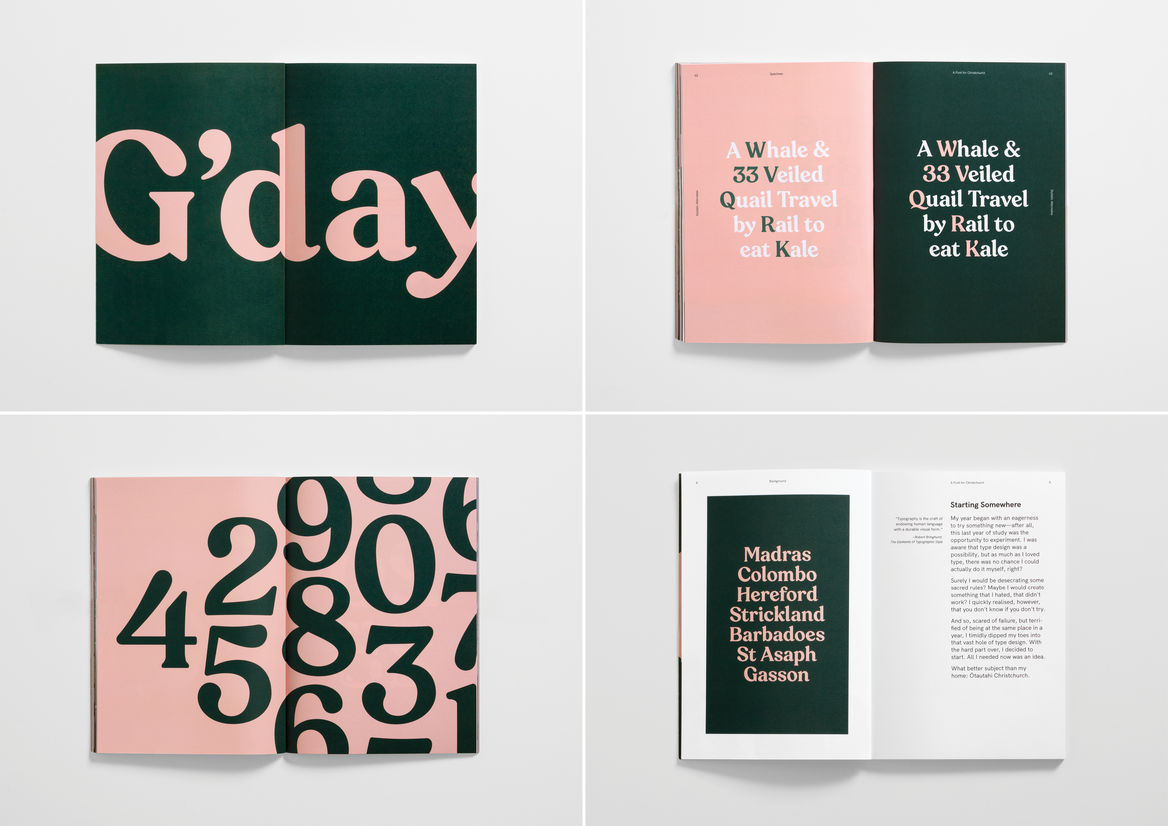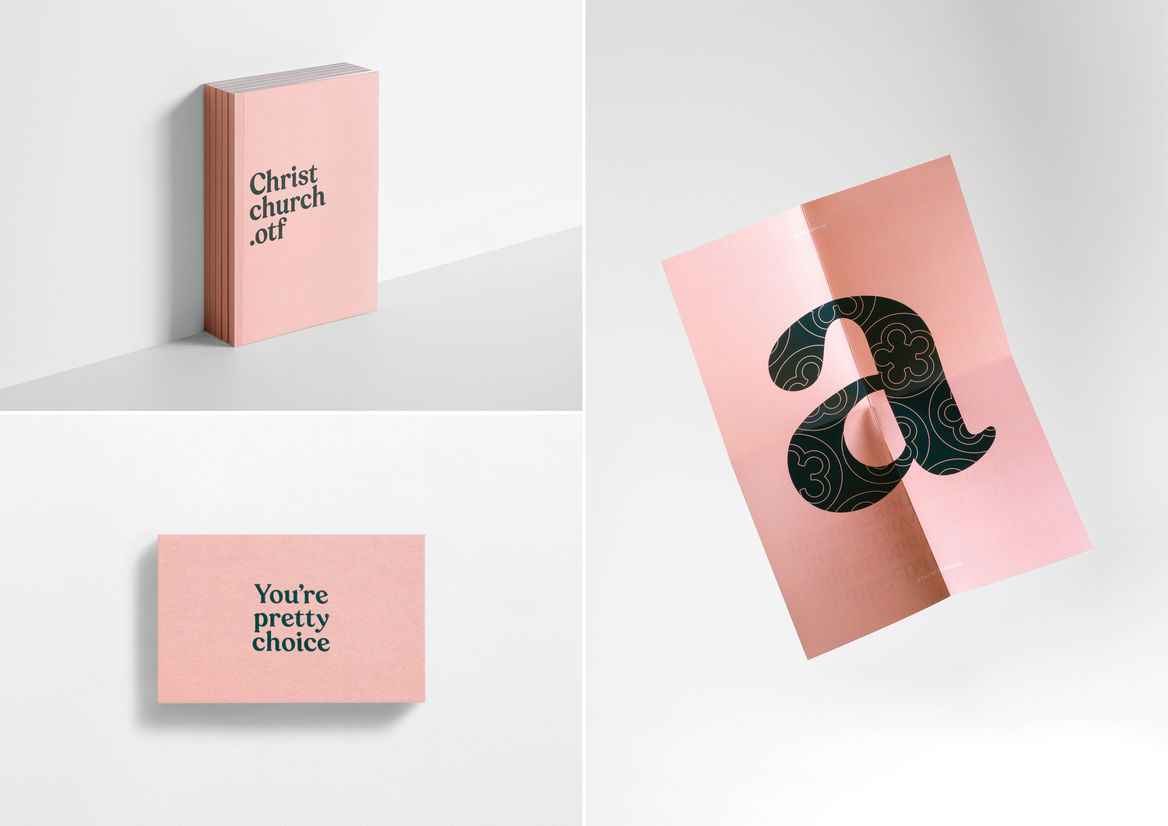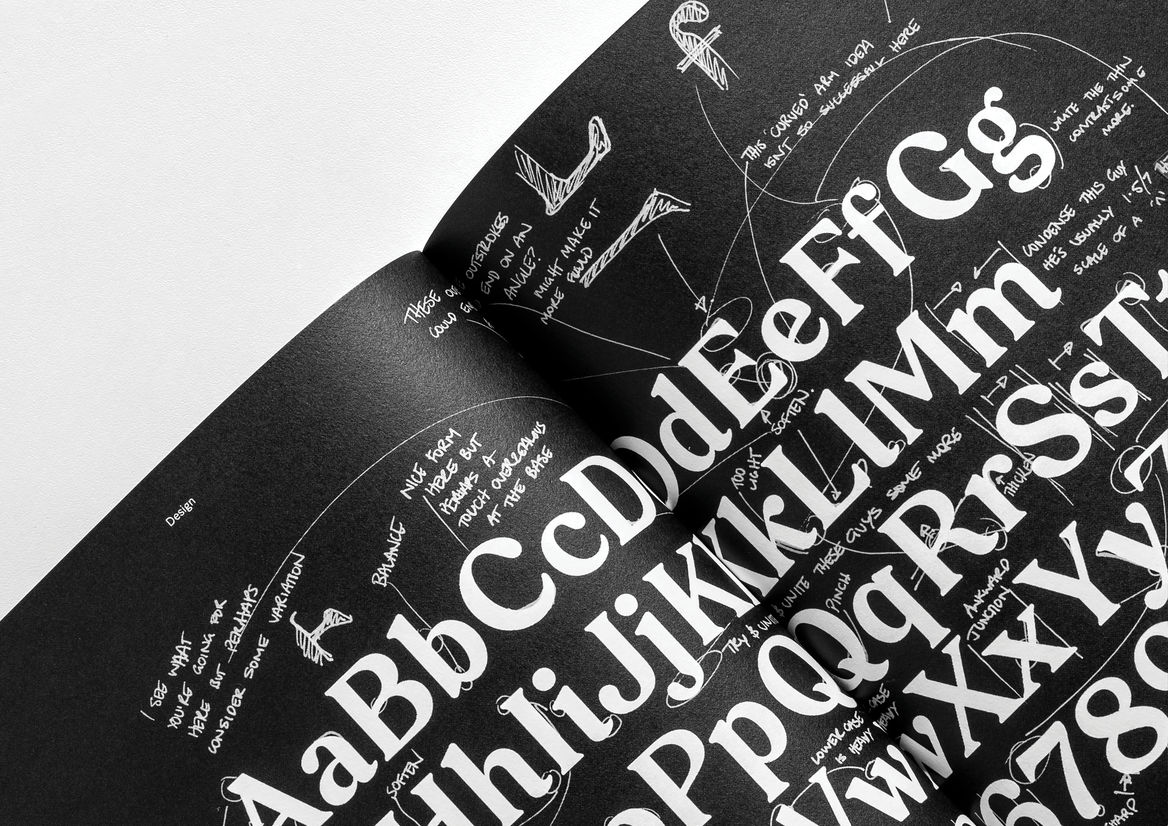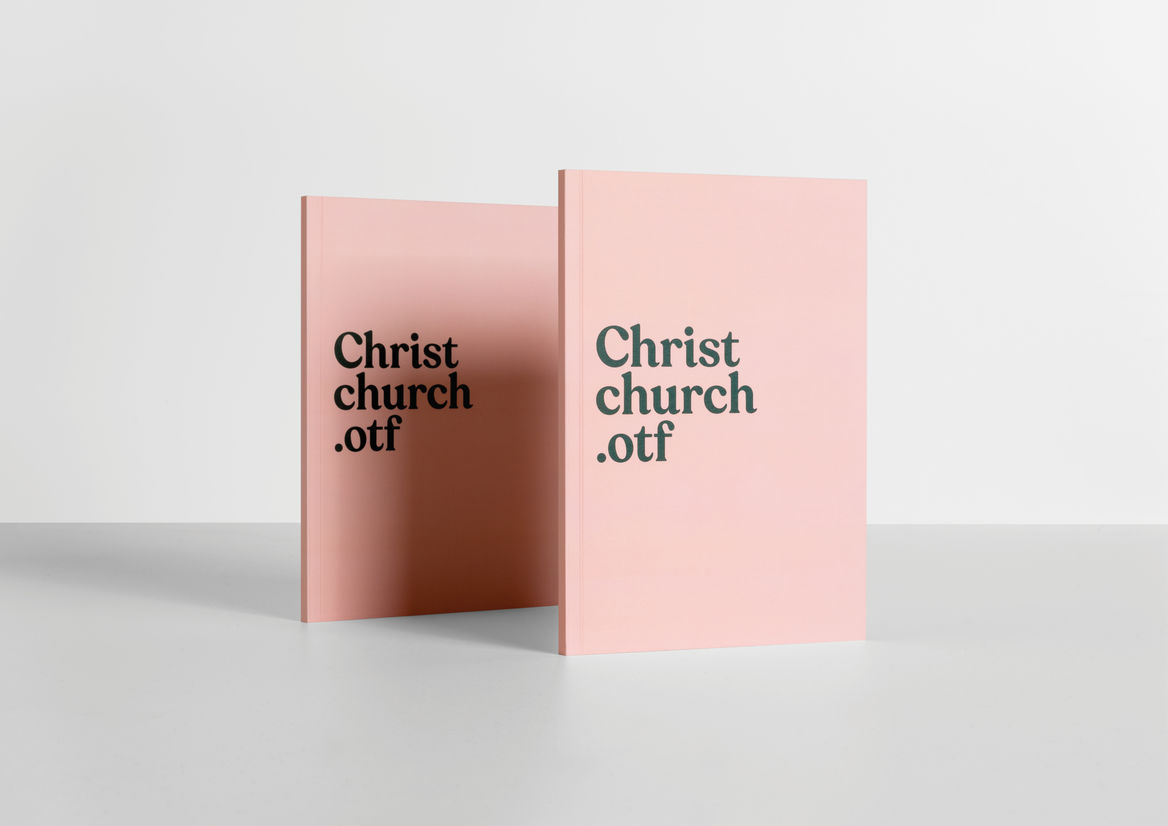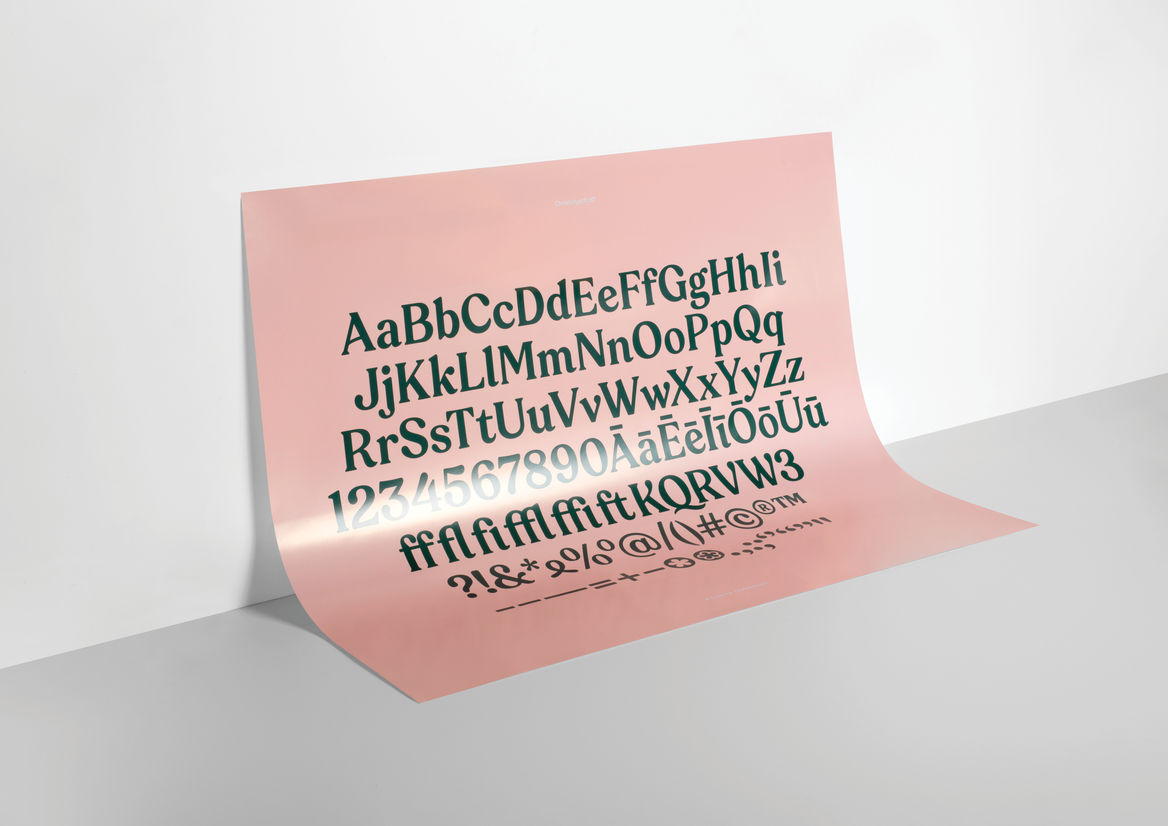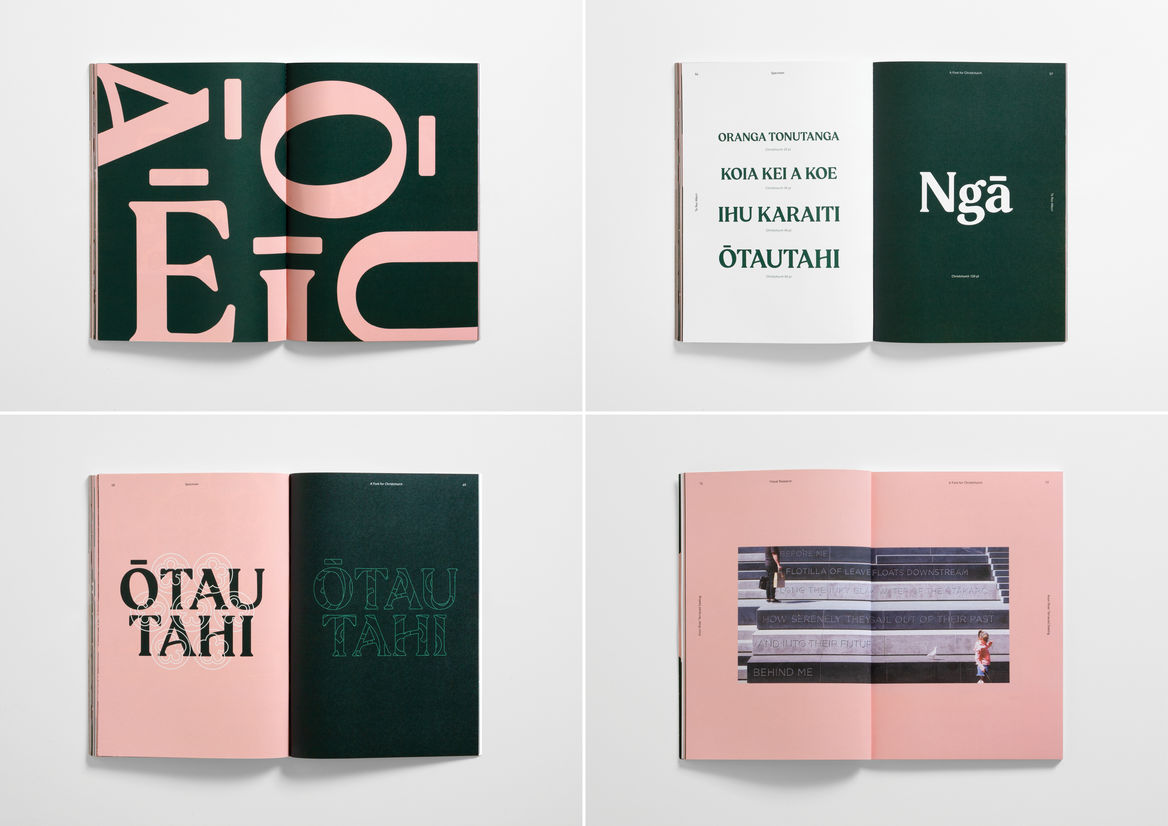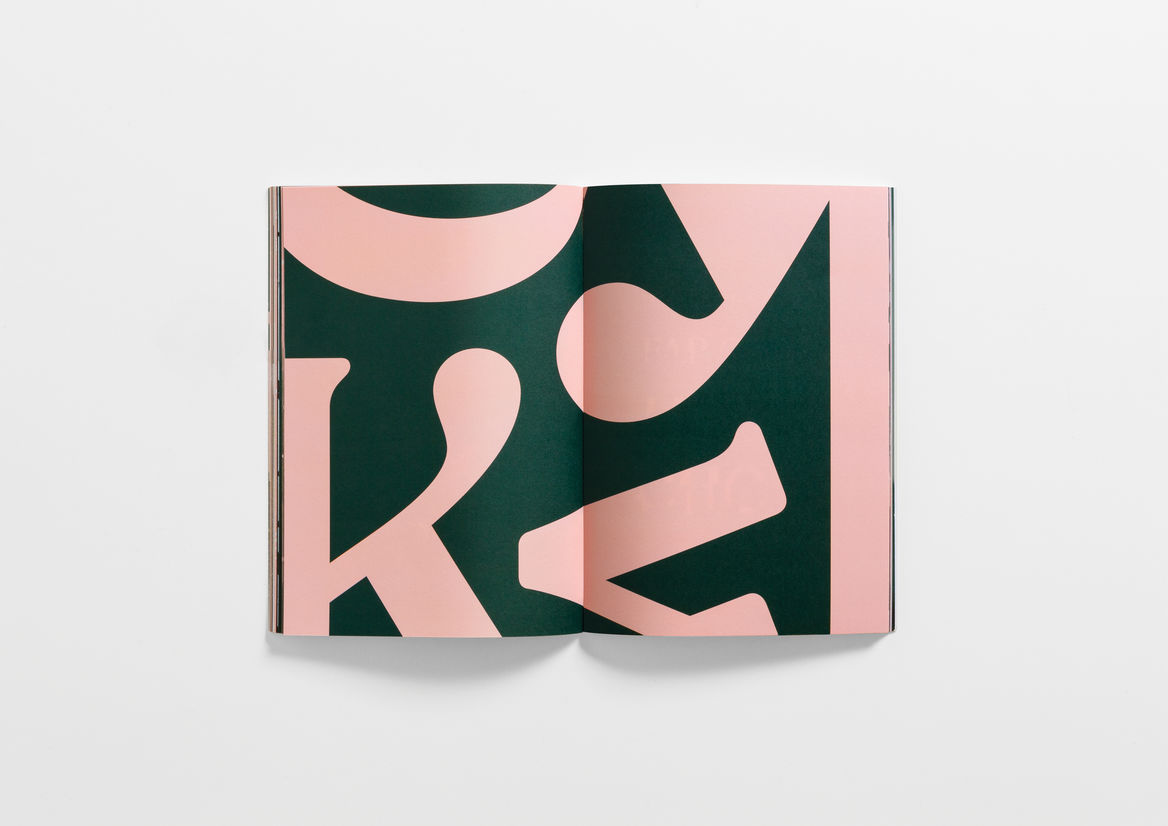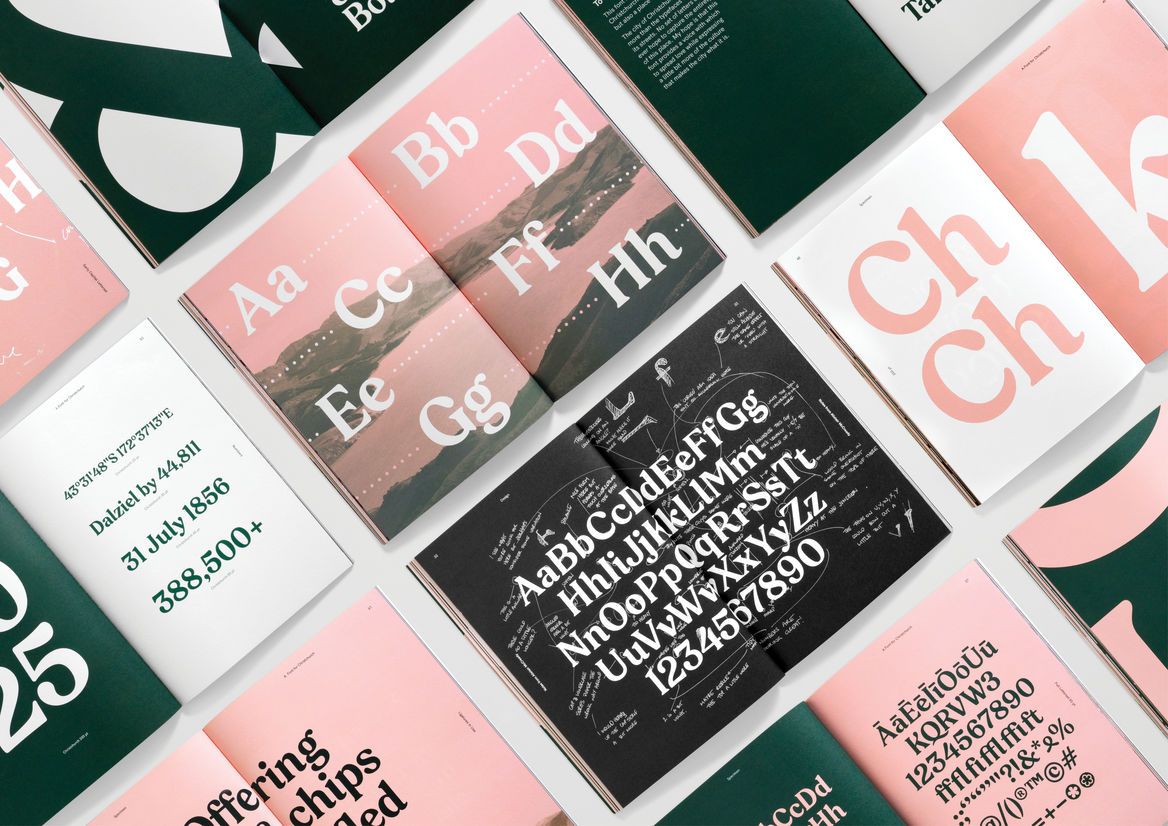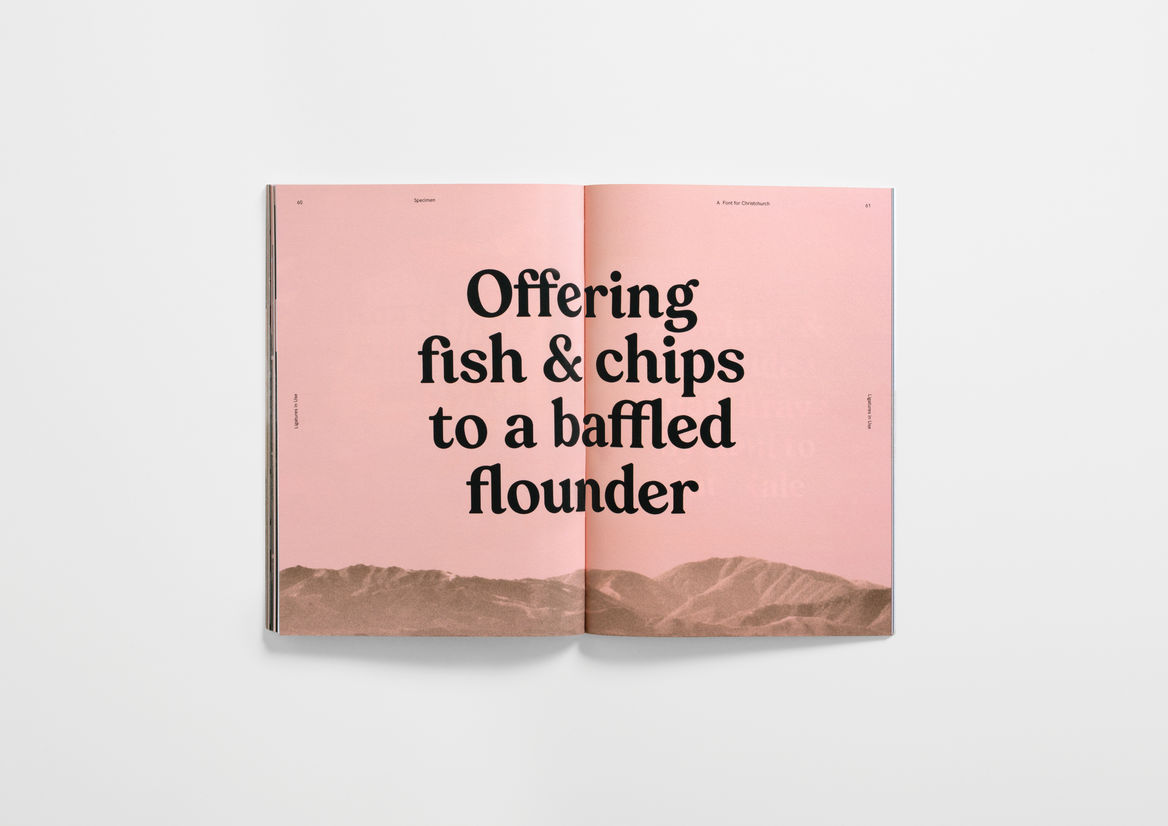
Positive, fun and approachable, encapsulating the character of the city into a typeface seems simple and easy but takes a lot of thought and hard work.